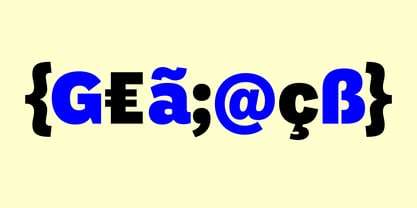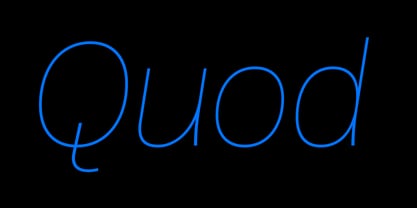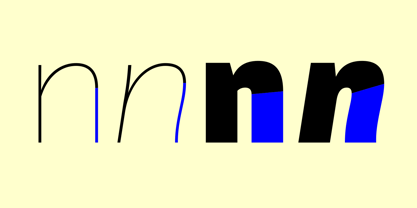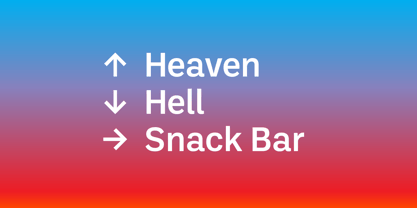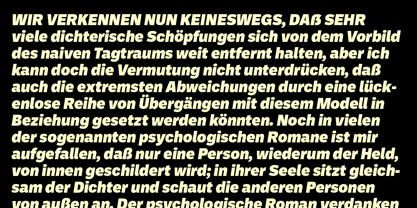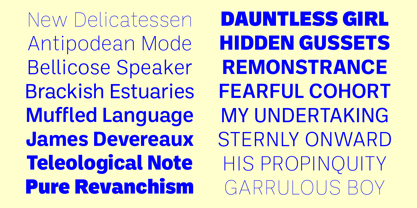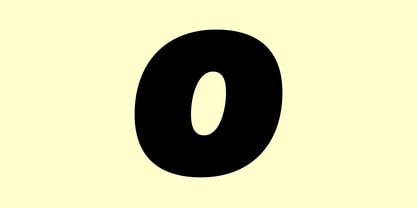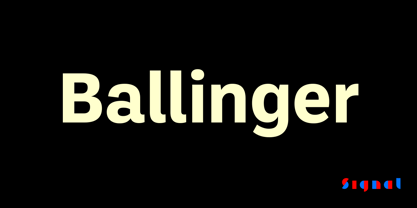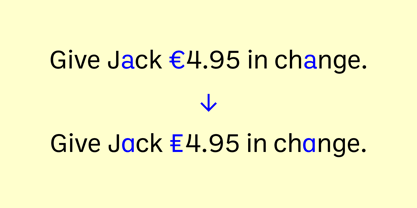
Ballinger™
by Signal
The Ballinger Font Family was designed by Max Phillips and published by Signal. Ballinger contains 16 styles and family package options.
Ballinger began life as a single-weight proprietary typeface called baasic, designed for Dublin-based design office aad. baasic was intended as a plain, hardworking grotesque: a simple tool for clear communication. We’ve developed it into a fully-featured eight-weight family with matching italics. Sources include early 20th century jobbing sanses like Morris Benton’s News Gothic and Candia, a 70s-era typewriter face Josef Müller-Brockmann designed for Olivetti, which had unusually deep junctures that added energy to letters like m and n. The family takes its name from Raymond A. Ballinger, the great mid-century American designer, author of ‘Lettering Art in Modern Use,’ and champion of elegance and readability. Ballinger has large counters and a generous x-height. Letters like a, e, and s open out gradually as they move from Thin to Black to maintain ample apertures, even in the darkest weights. Semi-oldstyle figures are available, as well as case-sensitive punctuation and delimiters. Italics incorporate subtle ogee curves to lend warmth and energy to the page or screen. And, of course, it pairs well with its sister face,
Designers: Max Phillips
Publisher: Signal
Foundry: Signal